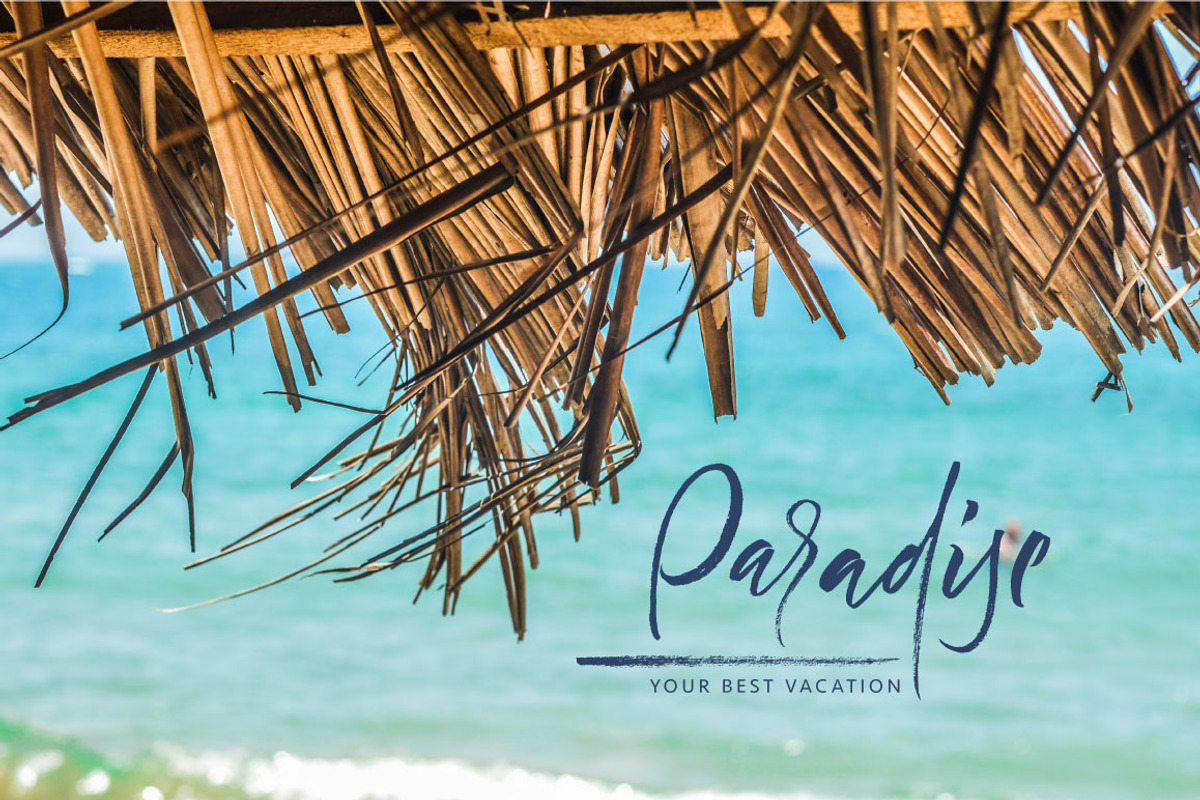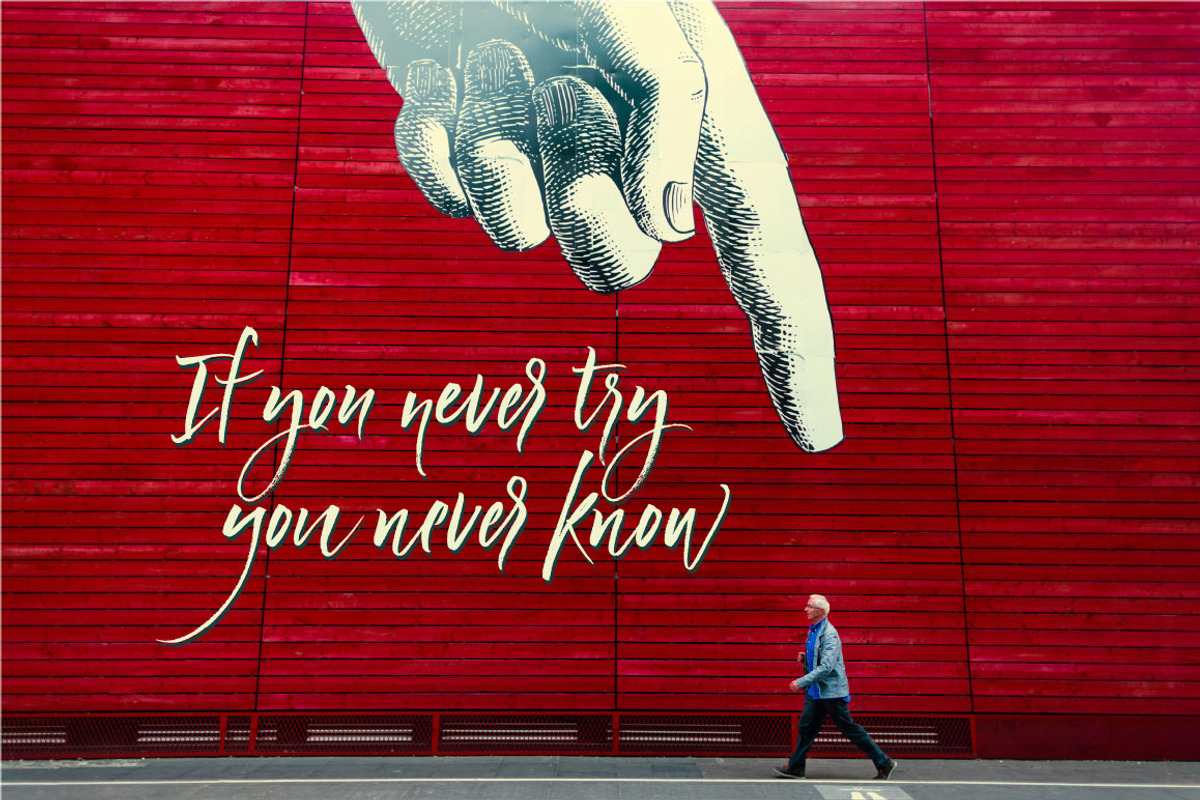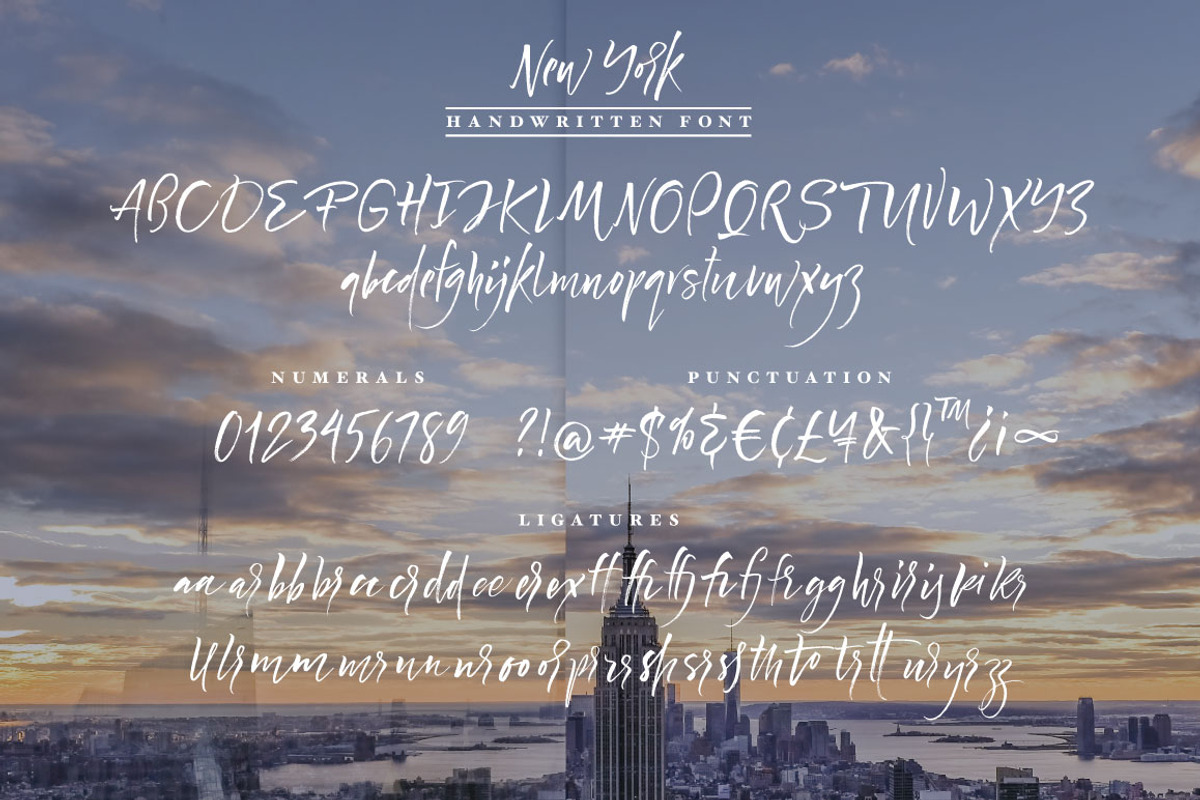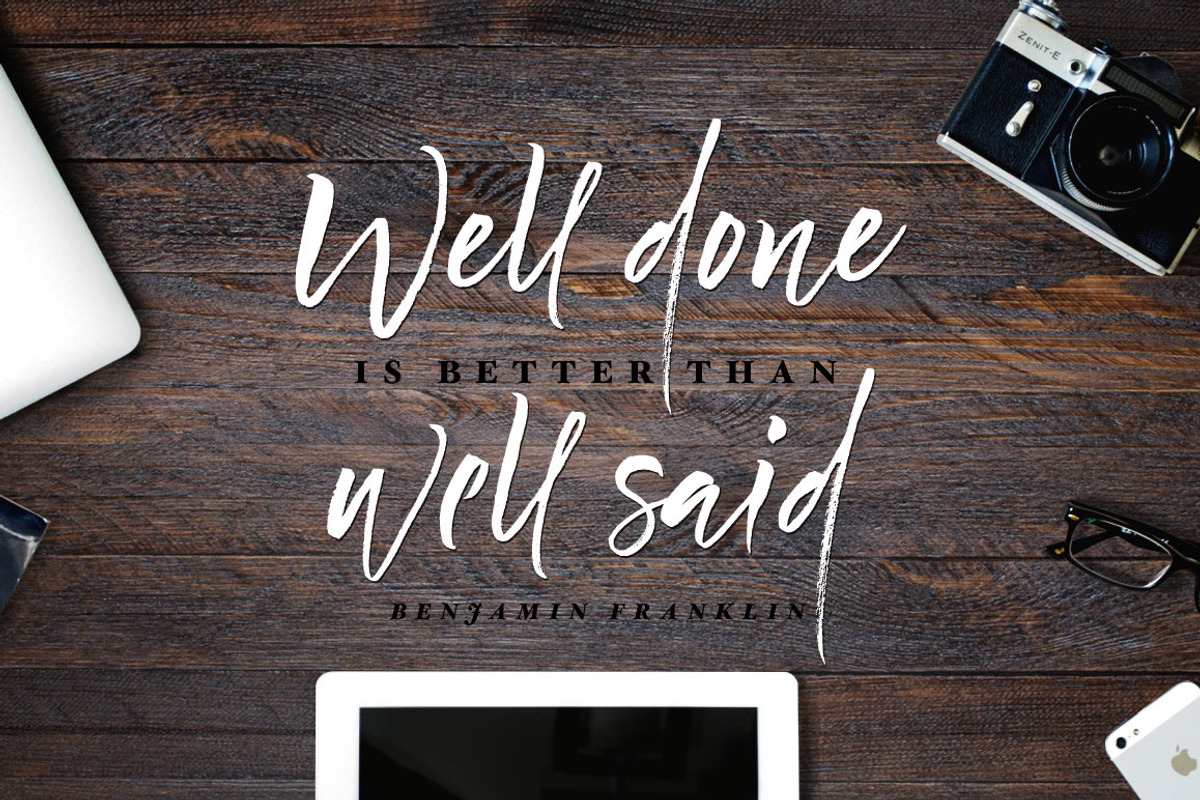
New York Handwritten Font
New York Handwritten Font by Vera Holera is a font selected for branding, posters, packaging, typography.
- Introducing New York handwritten script font A handwritten script font containing upper & lowercase characters, numerals, punctuation and a
- A lot of ligatures and alternative letters.
Why New York Handwritten Font is worth a look
New York Handwritten Font by Vera Holera fits naturally into Branding, posters, packaging, typography.